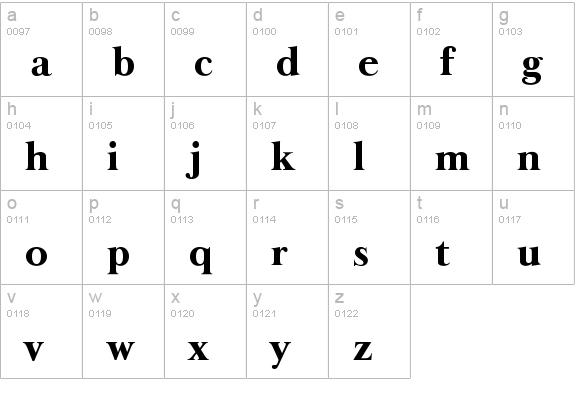
Oldbaskerville-Bold is a strong, high-contrast variant in the Oldbaskerville typeface family \xE2\x80\x94 well suited to headlines, attention-grabbing titles, and strong calls-to-action.
Oldbaskerville-Bold is a classic and elegant serif font that exudes a timeless charm and sophistication. Its bold weight commands attention and makes a strong visual impact, making it perfect for headlines, titles, and other prominent text elements. The sharp serifs and clean lines give it a refined and polished look that is both traditional and modern. What sets Oldbaskerville-Bold apart is that it is not only stylish and versatile, but also free to download for personal and commercial use. You can easily access this high-quality font at FontsMarket.com, where you can enhance your design projects with a touch of classic elegance without any cost. Whether you are creating a logo, branding materials, invitations, or any other design application, Oldbaskerville-Bold is a reliable choice that will elevate your work to the next level.